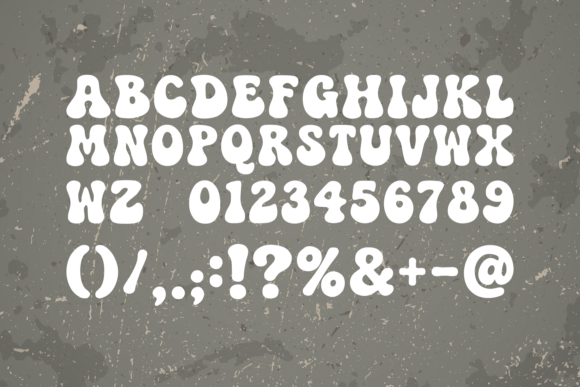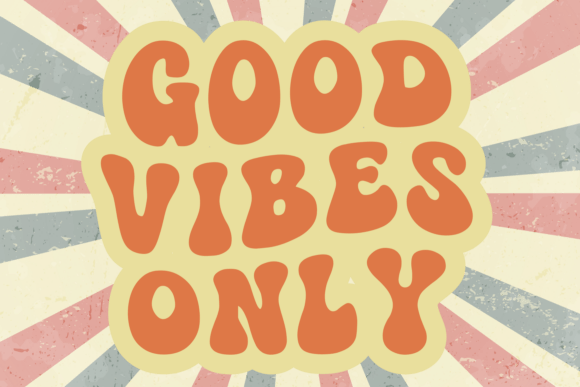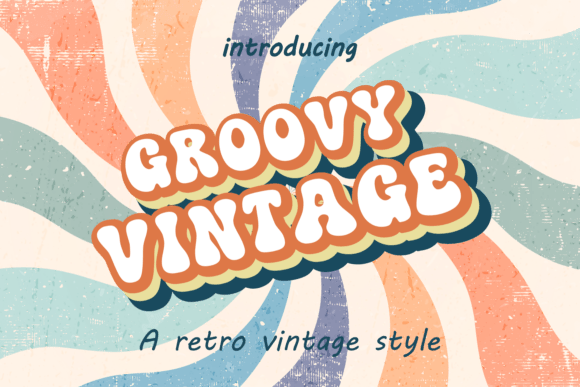
Groovy Vintage Font: The Ultimate Retro Display Font for Creative Projects
Are you looking for a font that adds a touch of nostalgia and playfulness to your creative projects? Look no further than the Groovy Vintage Font. This bold, retro-style display font is inspired by the design of the 1970s and features thick, rounded letters, wide curves, and smooth, uniform strokes. Its bubble-like shapes make it perfect for a variety of applications, from posters and album covers to t-shirts, branding, social media graphics, and product packaging.
What Makes Groovy Vintage Font So Special?
The Groovy Vintage Font is a unique and eye-catching font that is sure to make your creative projects stand out. Its retro-style design is reminiscent of the 1970s, an era known for its bold and playful design aesthetic. The font’s thick, rounded letters and wide curves give it a friendly and approachable feel, while its smooth, uniform strokes add a touch of sophistication.
One of the key features of the Groovy Vintage Font is its bubble-like shapes. These shapes give the font a playful and whimsical feel, making it perfect for projects that require a lighthearted and fun approach. Whether you’re designing a poster, album cover, or social media graphic, the Groovy Vintage Font is sure to add a touch of personality and style.
The Groovy Vintage Font is incredibly versatile and can be used for a wide range of applications. Here are just a few ideas to get you started:
- Posters: Add a touch of retro flair to your posters with the Groovy Vintage Font. Its bold, eye-catching design is perfect for promoting concerts, events, and products.
- Album Covers: Give your music a vintage vibe with the Groovy Vintage Font. Its bubble-like shapes and retro-style design make it perfect for album covers and music-related projects.
- T-Shirts: Create unique and eye-catching t-shirt designs with the Groovy Vintage Font. Its bold, playful design is sure to turn heads.
- Branding: Add a touch of personality to your brand with the Groovy Vintage Font. Its friendly and approachable feel makes it perfect for logos, business cards, and other branding materials.
- Social Media Graphics: Create engaging and eye-catching social media graphics with the Groovy Vintage Font. Its bold, retro-style design is sure to grab attention and drive engagement.
- Product Packaging: Give your product packaging a vintage vibe with the Groovy Vintage Font. Its bubble-like shapes and playful design make it perfect for packaging and labeling.
Why Designers and Crafters Love the Groovy Vintage Font
Designers and crafters love the Groovy Vintage Font for its unique and eye-catching design. Here are just a few reasons why:
- Easy to Read: Despite its bold and playful design, the Groovy Vintage Font is incredibly easy to read. Its smooth, uniform strokes and clear lettering make it perfect for projects that require a high level of legibility.
- Highly Versatile: The Groovy Vintage Font is incredibly versatile and can be used for a wide range of applications. Whether you’re designing a poster, album cover, or social media graphic, this font is sure to add a touch of personality and style.
- Unique and Eye-Catching: The Groovy Vintage Font is a unique and eye-catching font that is sure to make your creative projects stand out. Its retro-style design and bubble-like shapes make it a standout in any design.
In conclusion, the Groovy Vintage Font is a bold, retro-style display font that is perfect for creative projects that require a touch of nostalgia and playfulness. Its unique and eye-catching design, bubble-like shapes, and smooth, uniform strokes make it perfect for a wide range of applications, from posters and album covers to t-shirts, branding, social media graphics, and product packaging. Whether you’re a designer or crafter, the Groovy Vintage Font is sure to add a touch of personality and style to your creative projects.